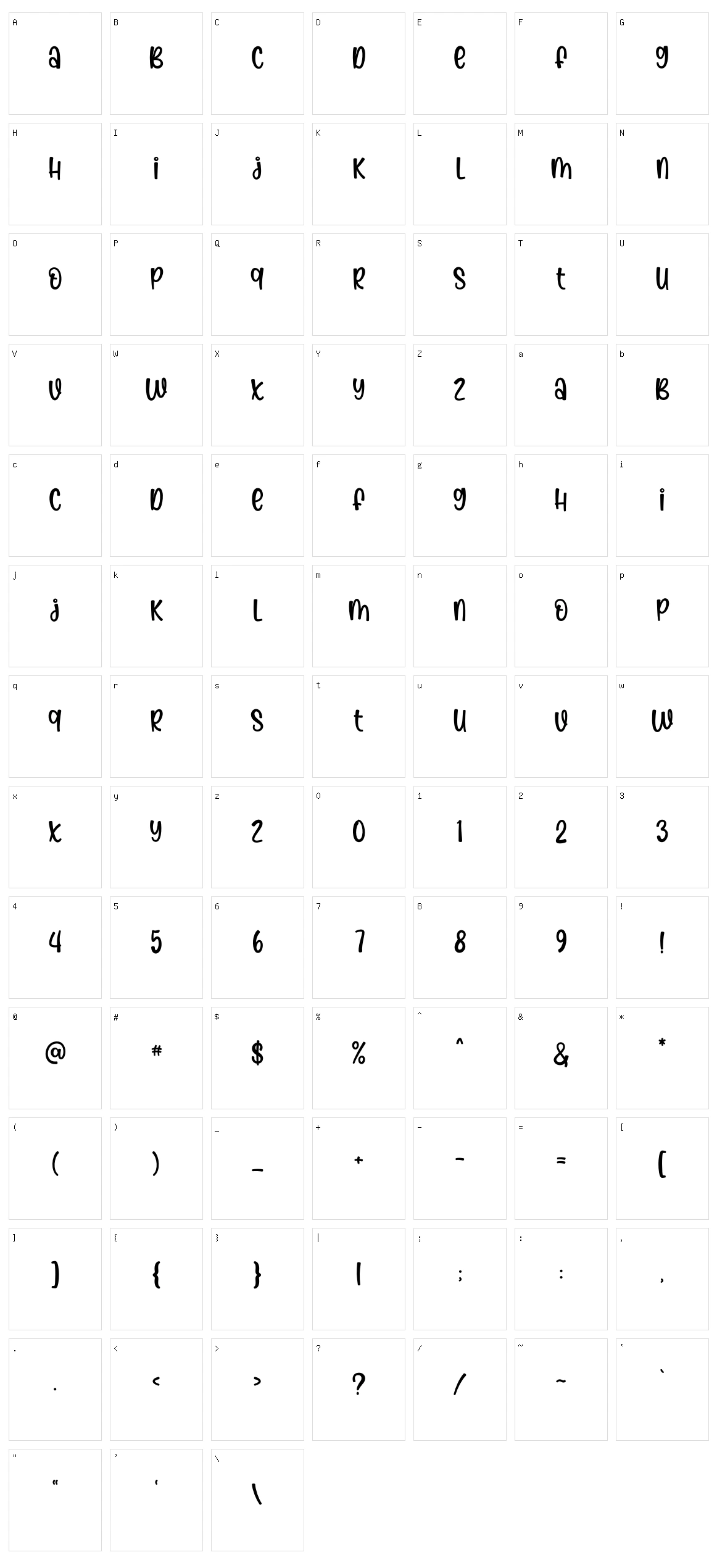
The free font Morning Spirit is carefully designed by Letter Art Studio, showcasing a thoughtful balance of creativity and usability and falls under the Cartoon font style. When you download the ZIP file, it contains only 152.47 KB of font files, making it lightweight and quick to download. Please review the license details below to understand permitted usage and distribution rights. If license information is not available, we recommend using this font for personal projects only or contacting the author directly for commercial usage permissions.